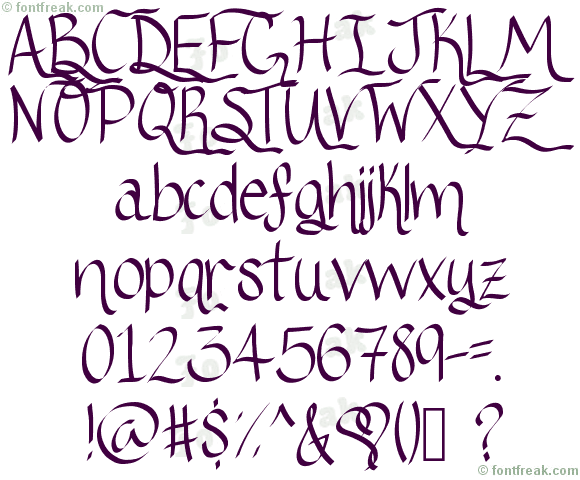
RibbonOfhope
About RibbonOfhope
The RibbonOfhope font by Vanessa Bays is a captivating script typeface that beautifully blends elegance with a touch of whimsy. With its flowing lines and graceful curves, this font exudes a sense of warmth and approachability, making it perfect for a variety of creative projects. The strokes are moderately weighted, providing a balanced contrast that enhances readability while maintaining a decorative flair. The spacing is thoughtfully designed, ensuring that each letter connects smoothly, creating a cohesive look that draws the eye.
This charming font is particularly well-suited for wedding invitations, where its romantic aesthetic can set the tone for a special day. It can also elevate the design of greeting cards, adding a personal touch to heartfelt messages. Small business owners can utilize the RibbonOfhope font for branding, especially in fields such as artisanal products, crafts, or boutiques, where a unique identity is essential. Additionally, it shines in event posters and flyers, capturing attention with its distinctive style while still conveying important information clearly.
Targeting graphic designers, small business owners, and content creators, this font offers versatility and expressiveness. It allows users to convey emotions and themes effectively, making it an excellent choice for those looking to make a lasting impression.
What sets the RibbonOfhope font apart is its ability to evoke feelings of joy and inspiration. Its unique design elements and flowing aesthetics create a visual narrative that resonates with audiences. Whether you’re crafting a heartfelt invitation or designing a promotional piece, the RibbonOfhope font free download provides an accessible option to enhance your creative projects, bringing ideas to life with elegance and charm.